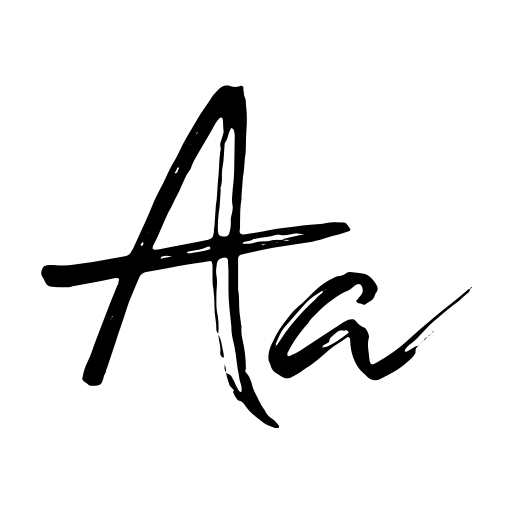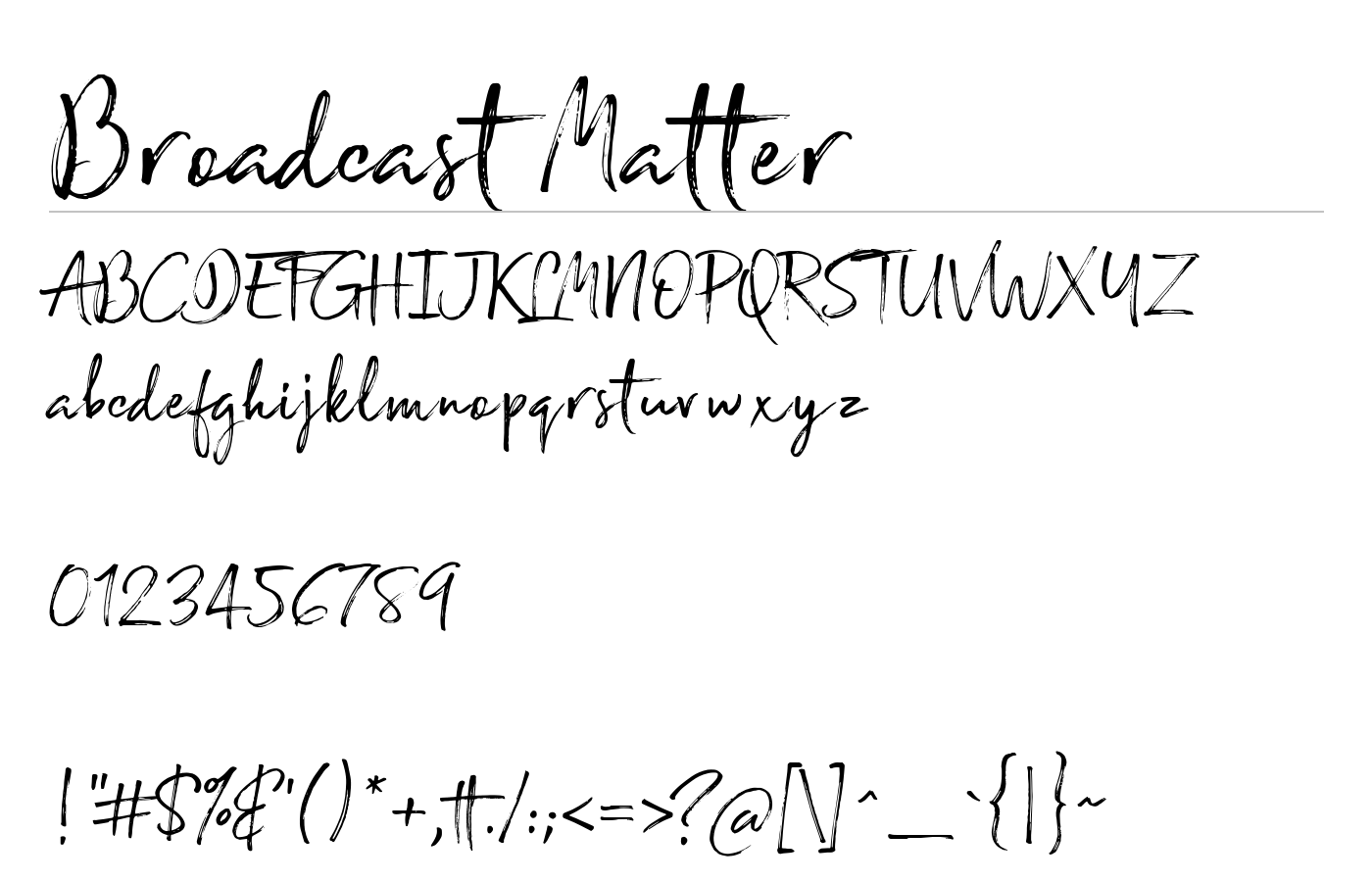
Broadcast Matter is a lively handwritten script font with an expressive, brushstroke texture that gives it a casual yet artistic feel. Its irregular, dynamic letterforms make it perfect for creative projects, headlines, and branding that seeks a personal, energetic touch. This font works well where a trendy, informal vibe is desired, such as in posters, social media graphics, and fashion packaging.
Broadcast Matter Font
About Broadcast Matter Font